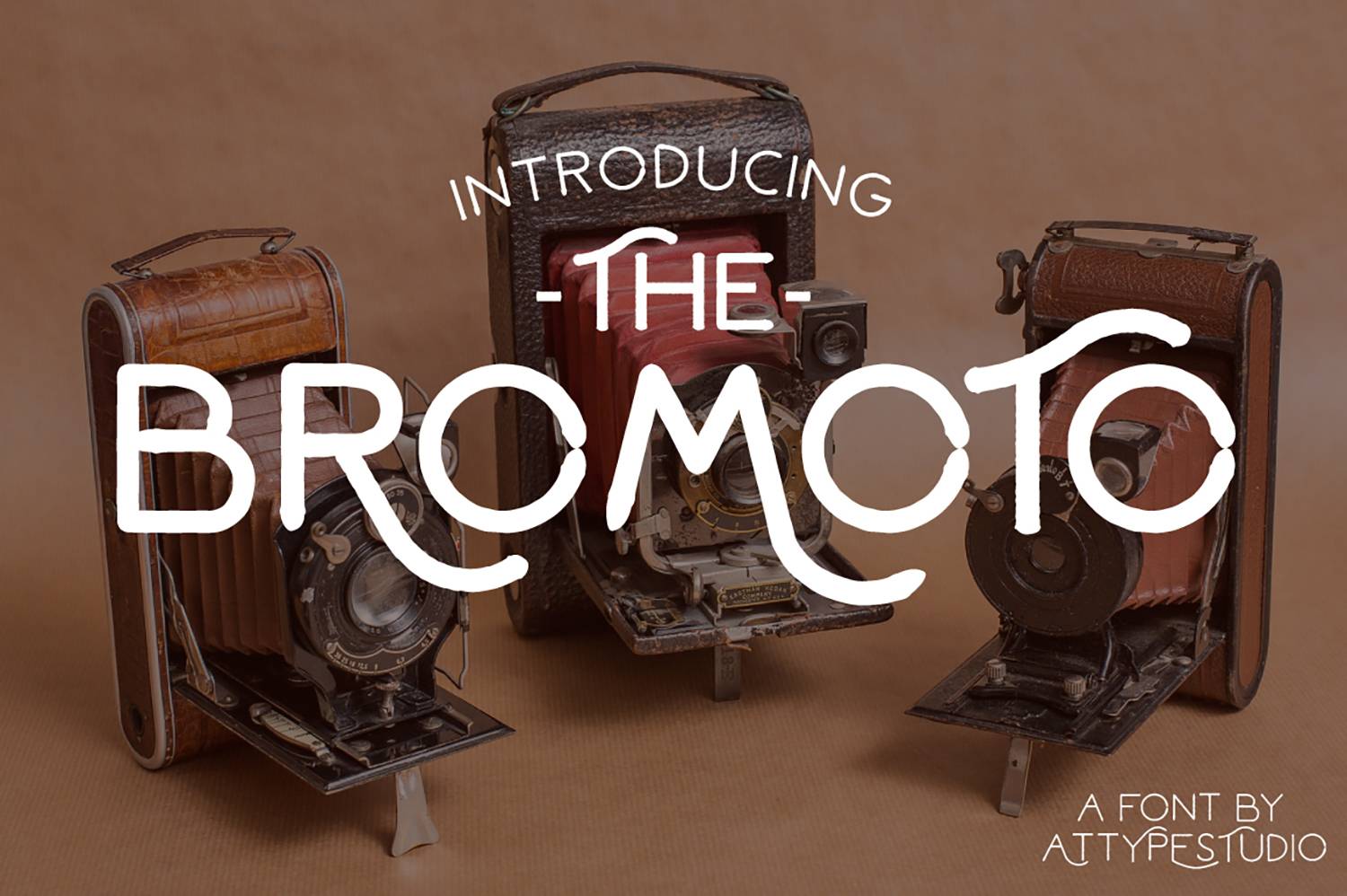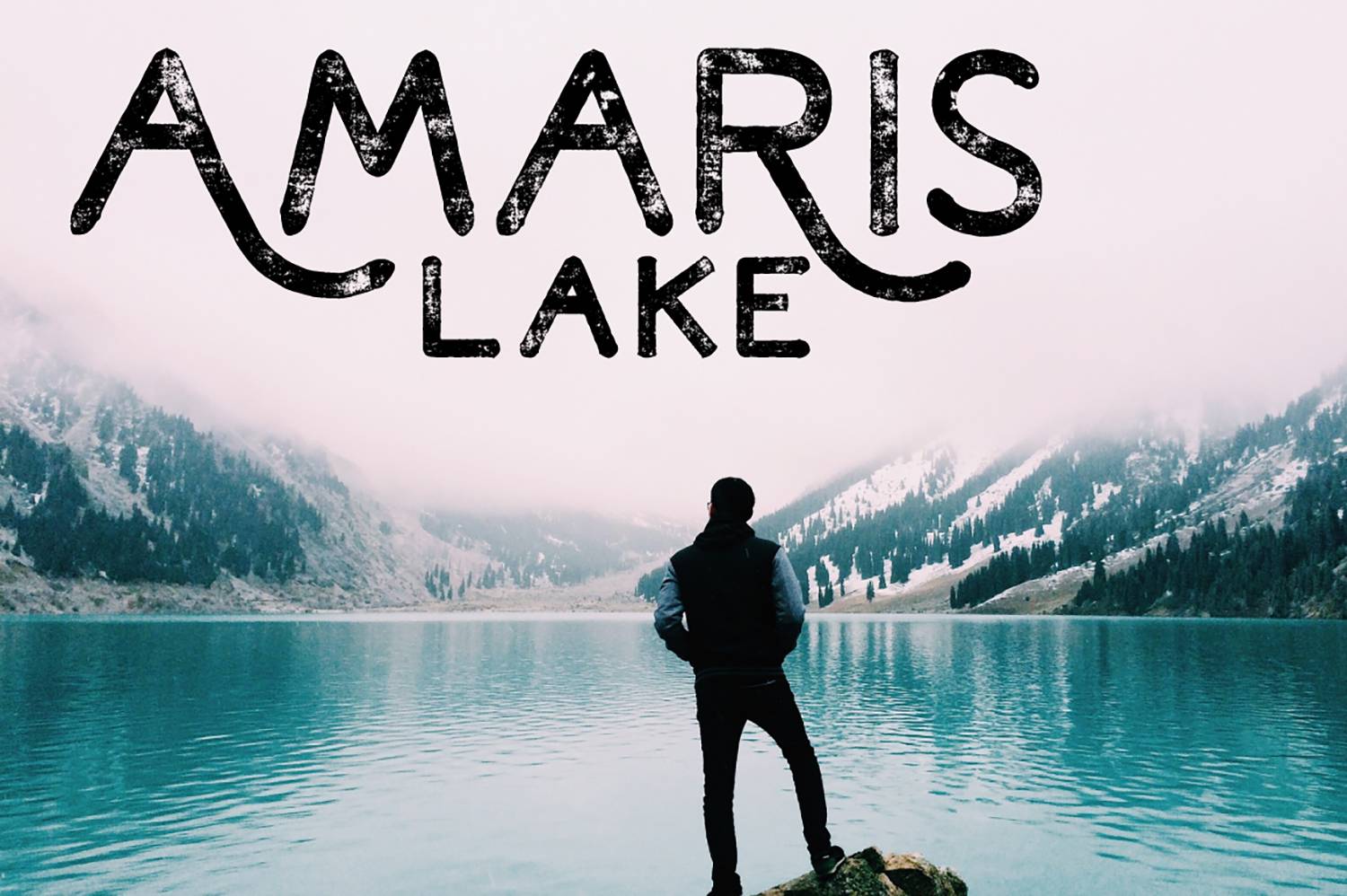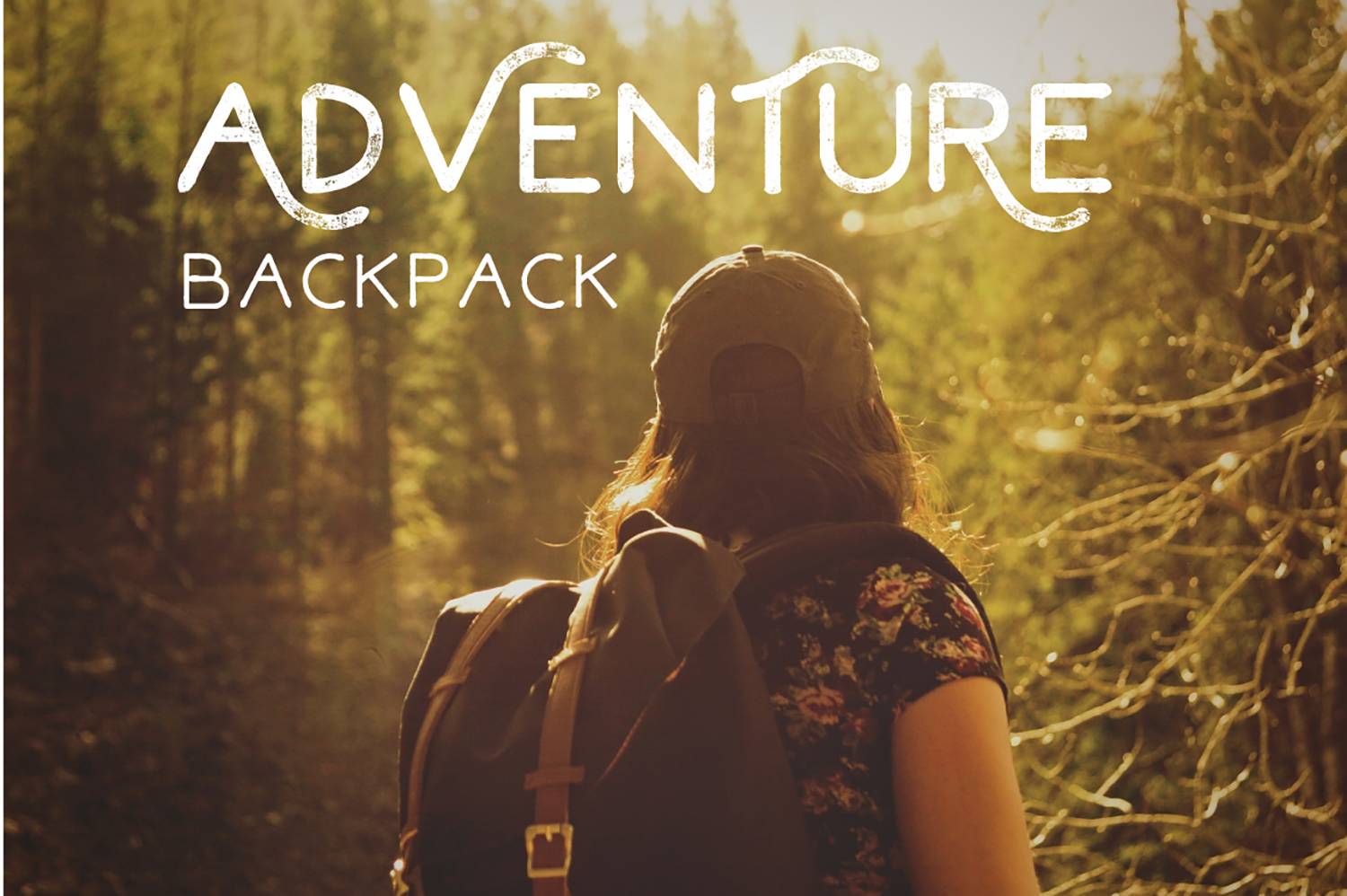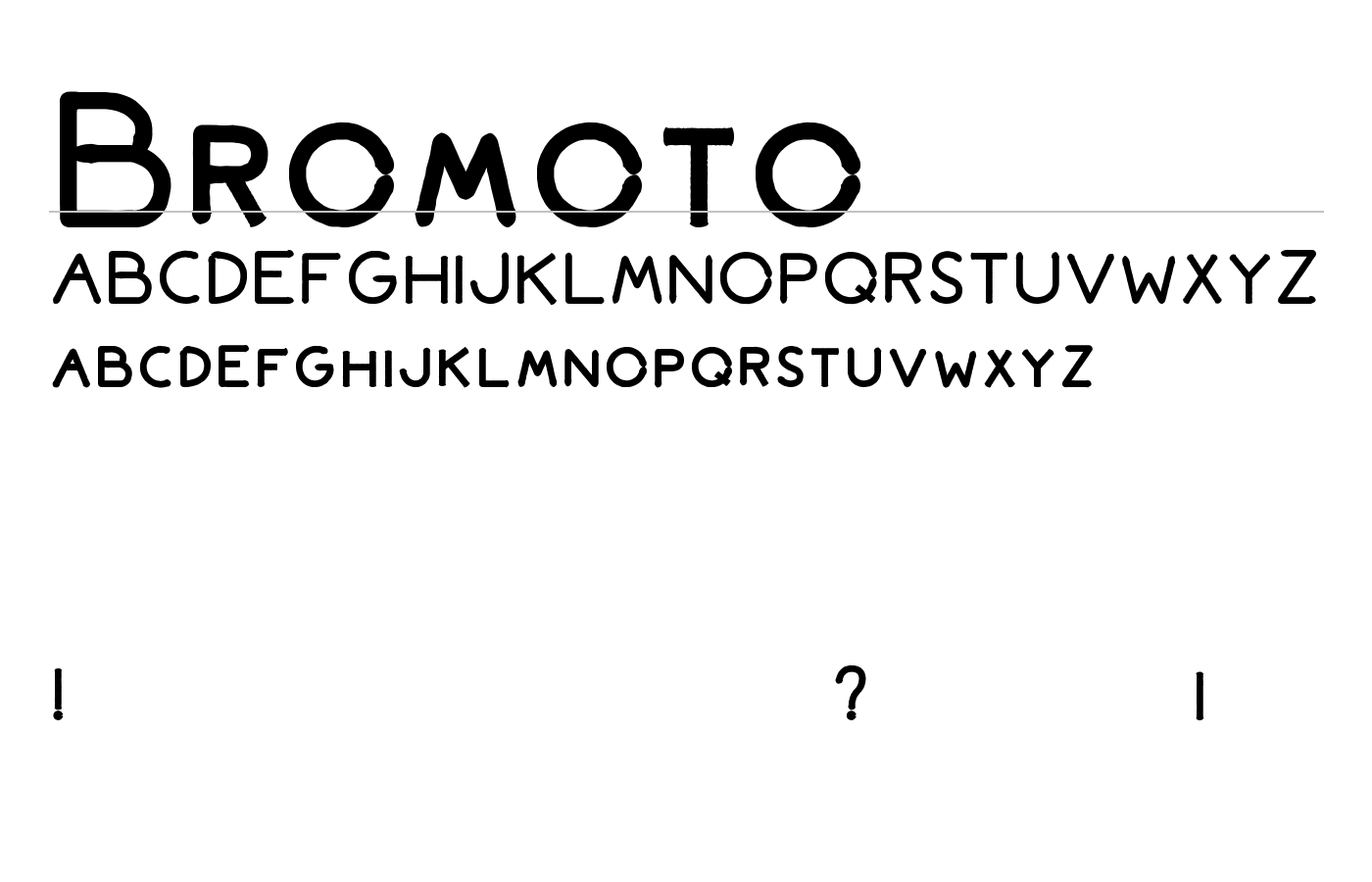
Bromoto is a unique sans serif font with a playful, hand-drawn quality, featuring rounded strokes and irregular, slightly textured edges that add character and warmth. Its medium weight and open, airy spacing make it ideal for creative projects needing a friendly and approachable vibe, such as logos, posters, or branding for casual and artistic brands. This font stands out with its quirky letterforms, making it perfect for designs that want to convey originality and charm.
Bromoto Font
About Bromoto Font